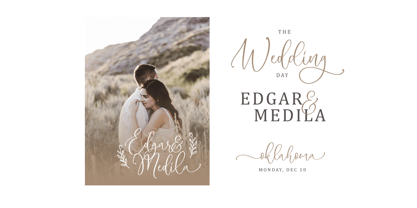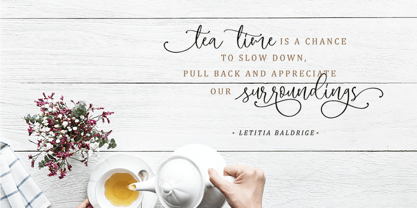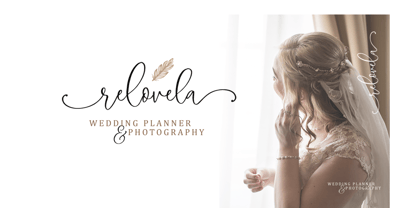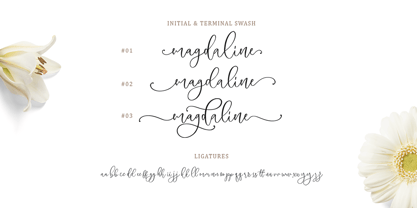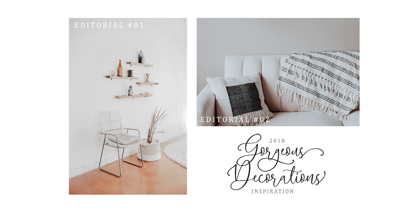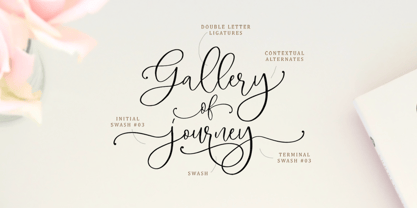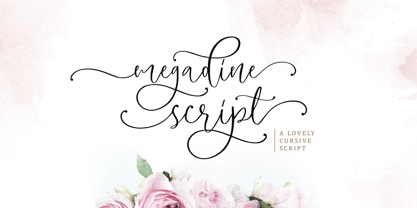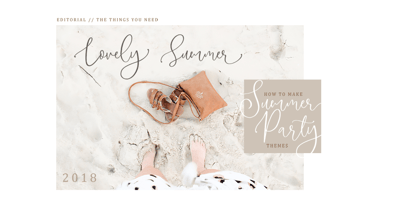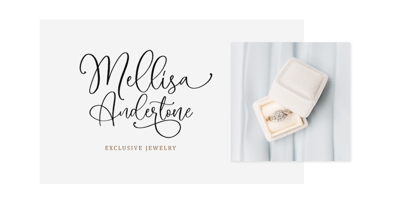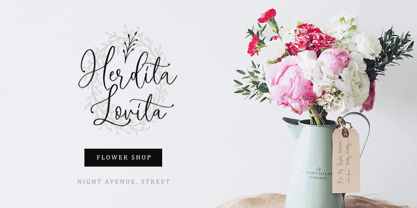
Megadine
by Sarid Ezra
The Megadine Font Family was designed by Sarid Ezra and published by Sarid Ezra. Megadine contains 1 styles. More about this family
Megadine Script is lovely modern calligraphy that contain lowercase, uppercase, symbol, and also support multi language. Including double ligatures, initial & terminal swash, special swash, and many alternates. You can use this font to make a logo for branding, beautiful fashion design, suitable for wedding invitation, or handwritten quote. Also already PUA Encoded.